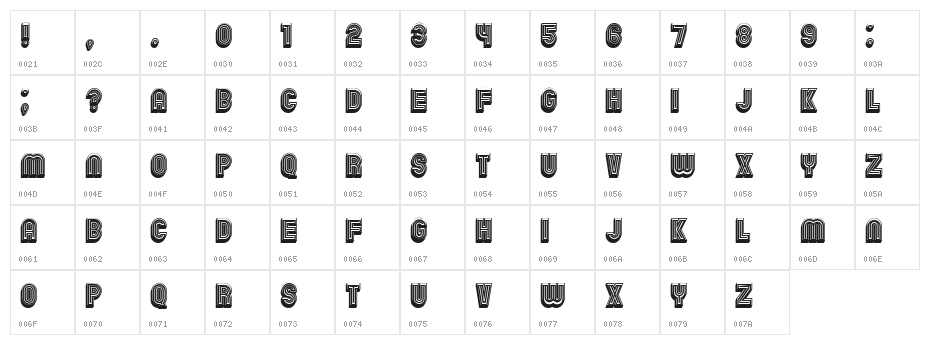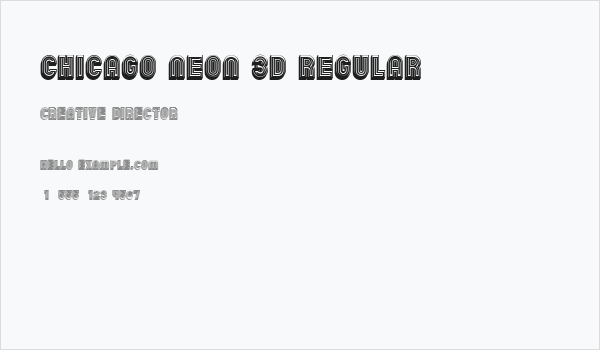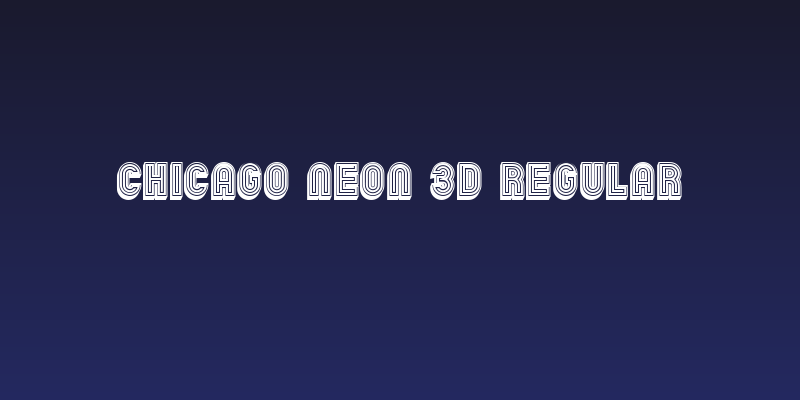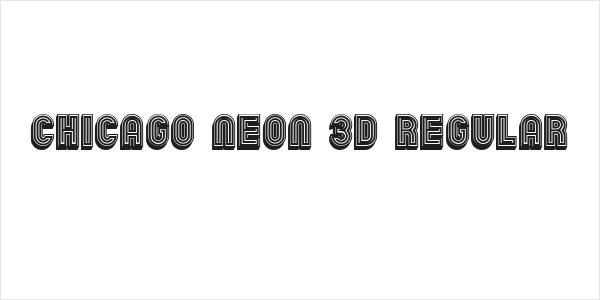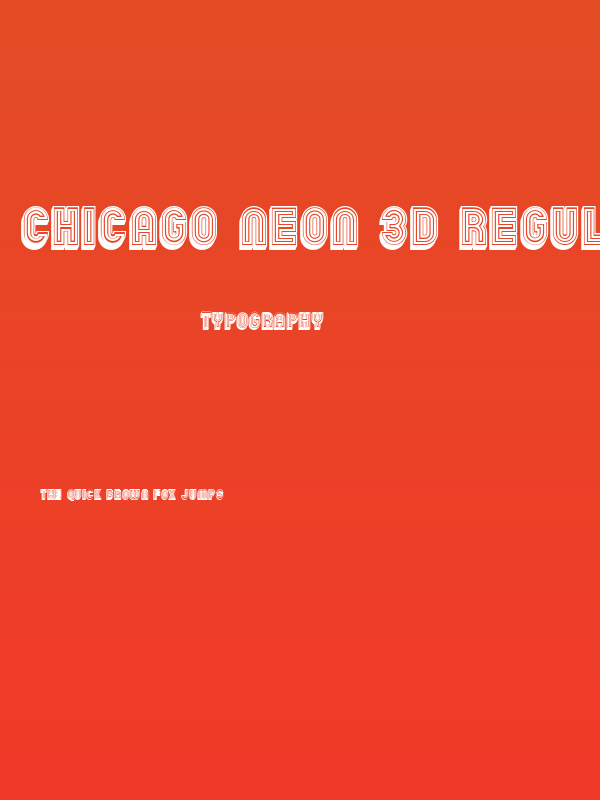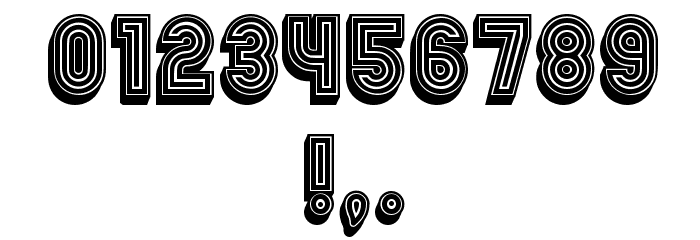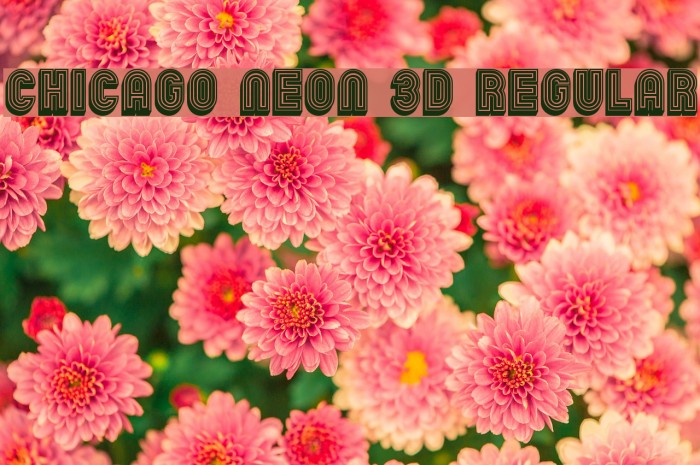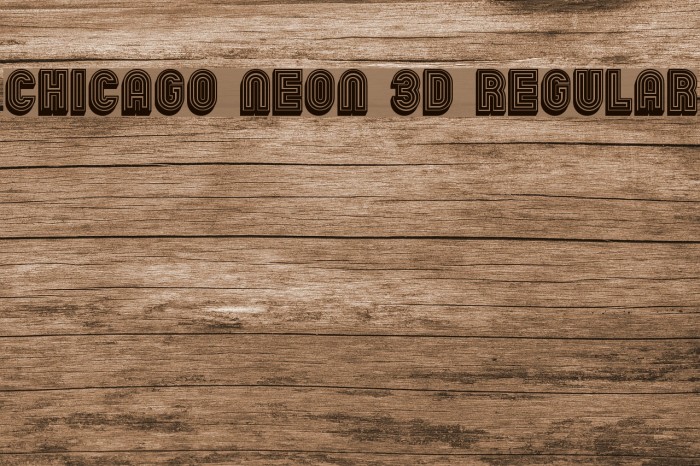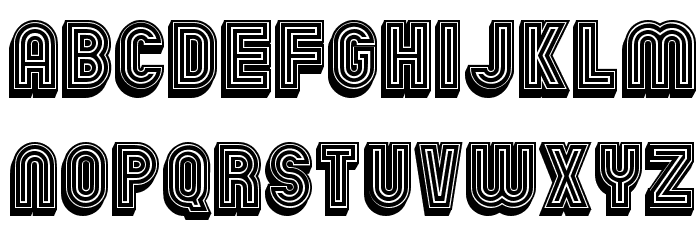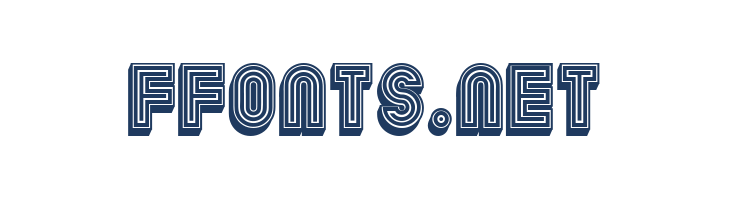
Chicago Neon 3D Regular Font
This font features a bold, three-dimensional design with a neon-like appearance. The letters are outlined with multiple layers, creating a striking visual effect that mimics the look of neon lights. The uppercase and lowercase letters maintain a consistent style, with rounded edges and a uniform thickness throughout. The numbers and special characters follow the same design principles, ensuring a cohesive look across all elements. This font is ideal for projects that require a vibrant and eye-catching display, such as signage, posters, and digital media.
| Use Case | Headlines, Logos, Signage |
| Proposed Projects | Perfect for neon signs, retro-themed posters, digital media, and eye-catching headlines. |